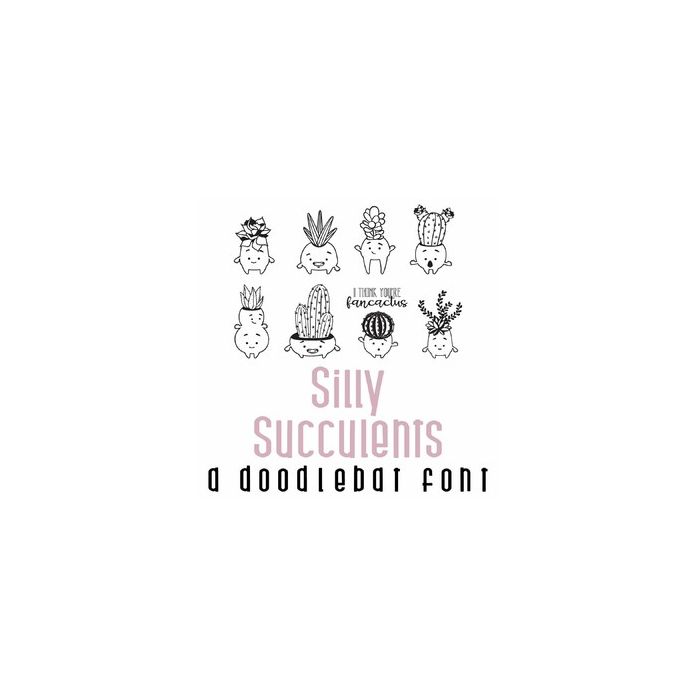
Silly Succulents Doodlebat Font
This adorable doodlebat font features 26 cute succulents and puns perfect for cards, crafts, gifts, decor, planner stickers, scrapbook pages and more!